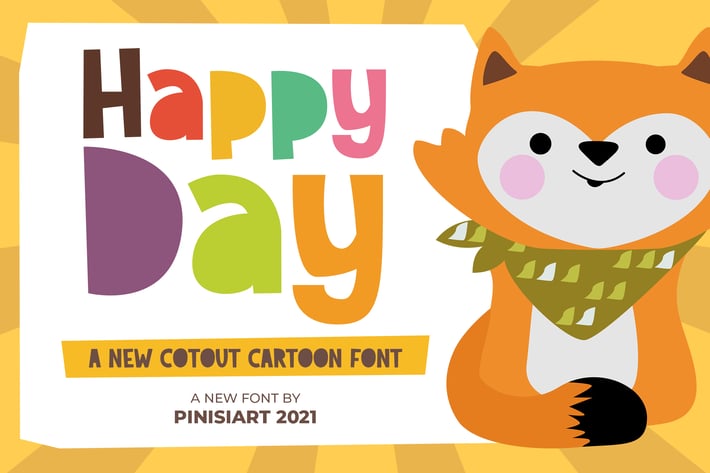
Happy Day - cutout kids font
a fresh paper that being cut out and create a font. Full of happiness and joyful adventure in it
Suit perfectly for kids themes books market, online games, stationary, school supplies font, poster, birthday invitation, youtube covers, youtube thumbnails, social media page covers and so on...